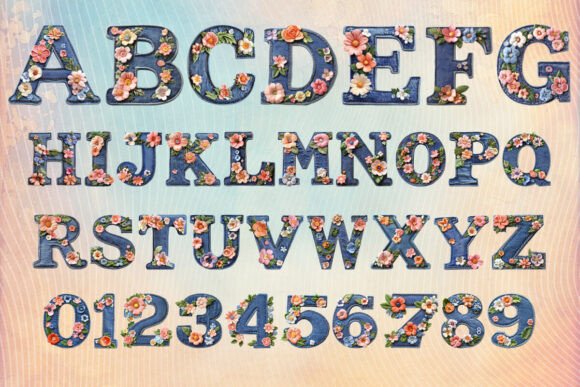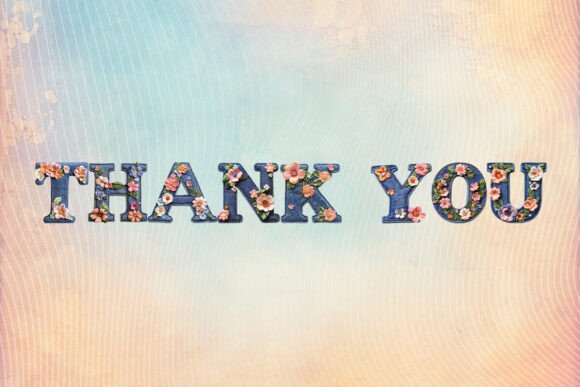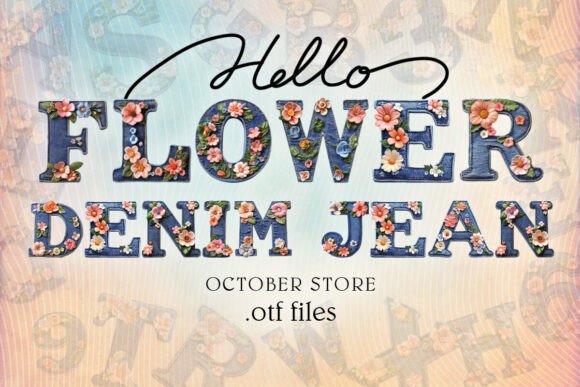
Discover the Unique Charm of Flower Denim Jean Font
Are you ready to elevate your design game with a font that’s as stylish as it is unique? Look no further than the Flower Denim Jean Alphabet, a daring denim jean aesthetic font that seamlessly merges fashion with typography. This stunning color font is not just a visual treat, but a creative tool that can add a distinct touch to any project.
The Beauty of Flower Denim Jean Alphabet
The Flower Denim Jean Alphabet is a breathtaking exploration of the versatile potential of font design. Each intricately designed letter is a masterpiece, showcasing a beautiful blend of natural elegance and edgy denim style. The font’s design is inspired by the natural grace of blooming flora, which is seamlessly sewn into an authentic denim canvas. The result is a font that’s both stylish and statement-making.
A Font that’s More than Just a Font
The Flower Denim Jean Alphabet is more than just a font – it’s a statement of style. With its unique blend of fashion and typography, this font can add a creative touch to any project. Whether you’re a designer, crafter, or DIY enthusiast, this font is sure to inspire your next project. From crafting stunning social media graphics to designing eye-catching posters, the Flower Denim Jean Alphabet is the perfect tool to make your designs stand out.
Why Designers and Crafters Love the Flower Denim Jean Alphabet
So, why do designers and crafters love the Flower Denim Jean Alphabet? Here are just a few reasons:
- Unique Style: The Flower Denim Jean Alphabet offers a unique blend of fashion and typography that’s hard to find in other fonts.
- Versatility: This font can be used in a wide range of projects, from social media graphics to posters and more.
Tips for Using the Flower Denim Jean Alphabet
Here are a few tips for using the Flower Denim Jean Alphabet in your designs:
- Experiment with Colors: One of the best things about the Flower Denim Jean Alphabet is its color format. Experiment with different colors to find the perfect combination for your project.
- Mix and Match: Don’t be afraid to mix and match letters to create a unique look. The Flower Denim Jean Alphabet is designed to be versatile, so feel free to get creative!
- Use in Combination with Other Fonts: For added visual interest, try using the Flower Denim Jean Alphabet in combination with other fonts. This can add depth and texture to your designs.
The Flower Denim Jean Alphabet is a game-changing font that’s sure to elevate your design game. With its unique blend of fashion and typography, this font is perfect for designers, crafters, and DIY enthusiasts. Whether you’re looking to add a creative touch to your projects or simply want to try something new, the Flower Denim Jean Alphabet is a must-have font in your collection.